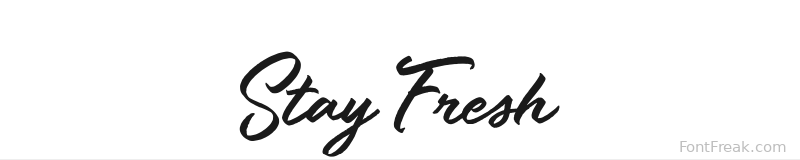
Stay Fresh
Stay Fresh by BLKBK Fonts is a captivating script font that embodies a lively and contemporary aesthetic. Characterized by its fluid strokes and playful curves, this font brings an inviting charm to any design project. The stroke weight varies elegantly, offering a balanced contrast that enhances readability while still maintaining a casual and friendly appearance. The letterforms are well-spaced, allowing for a smooth flow that is both eye-catching and legible. The subtle decorative elements within the characters add a touch of whimsy, making Stay Fresh a delightful choice for creative endeavors.
This font is particularly well-suited for a variety of applications. It excels in wedding invitations, where its stylish flair can convey romance and elegance. Additionally, Stay Fresh is perfect for restaurant menus, enabling eateries to showcase their culinary offerings with a touch of character. Its dynamic style also makes it an excellent choice for movie posters, where capturing attention is crucial. Content creators will find it an ideal addition to social media graphics, making posts stand out in a crowded feed.
In conclusion, Stay Fresh distinguishes itself with its charming design and versatility. Whether used in formal invitations or casual branding, this font brings an energetic vibe that can transform any project, making it a must-have for those seeking to convey a fresh and engaging message.